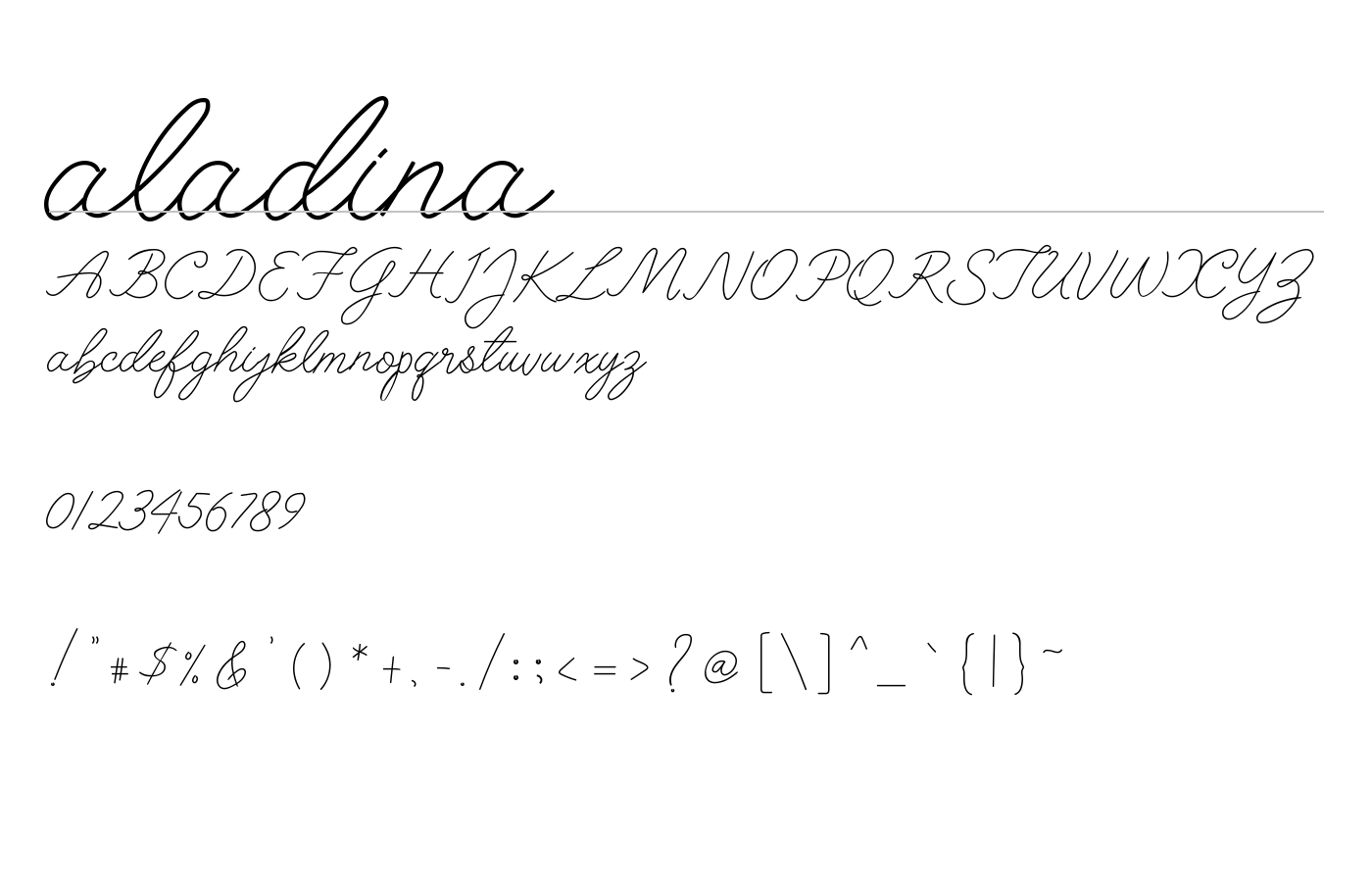
Aladina is a delicate and elegant script font with thin, flowing lines that emulate natural handwriting. Its light weight and smooth, connected strokes give it a graceful and refined feel, making it ideal for invitations, branding, and any design that seeks a personal, sophisticated touch. This font works beautifully in contexts where a soft, stylish, and inviting atmosphere is desired.